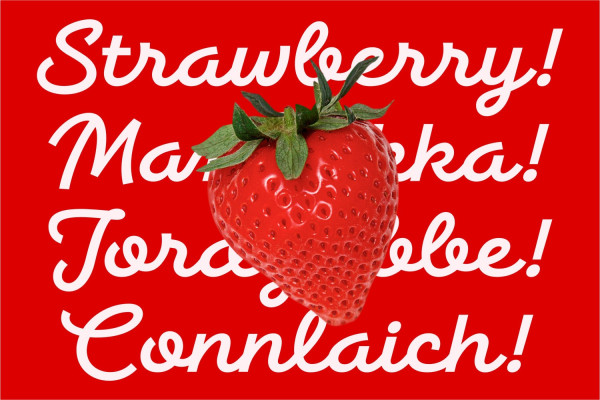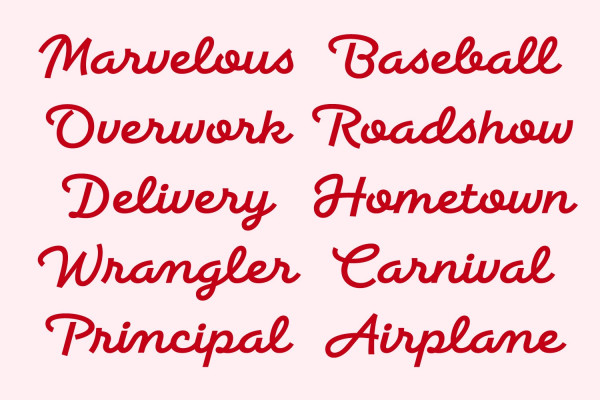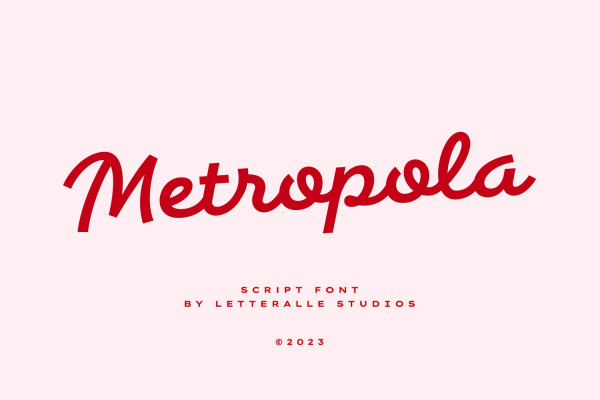
Metropola Script Font
Metropola Script Font, the latest addition to the world of fonts that will leave you spellbound. With its unique monoline style, Metropola is not just a font; it’s an experience that transforms your every creative endeavor into a masterpiece.
Metropola is your ticket to effortless chic. This script font boasts a sleek, monoline design that effortlessly balances sophistication with a dash of casual charm. Its versatile nature makes it perfect for an array of display needs, whether it’s a branding project, an eye-catching logo, or captivating headlines.
Metropola Script Font  – Your Gateway to Casual Elegance!